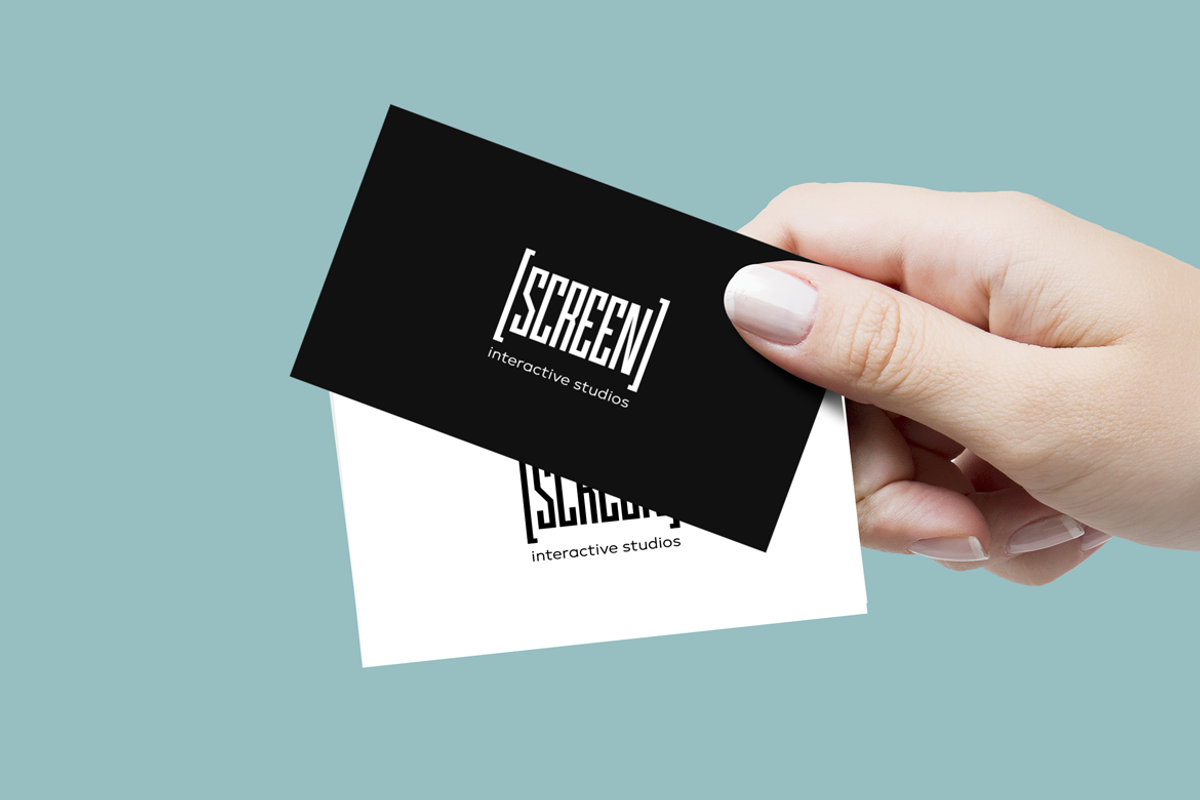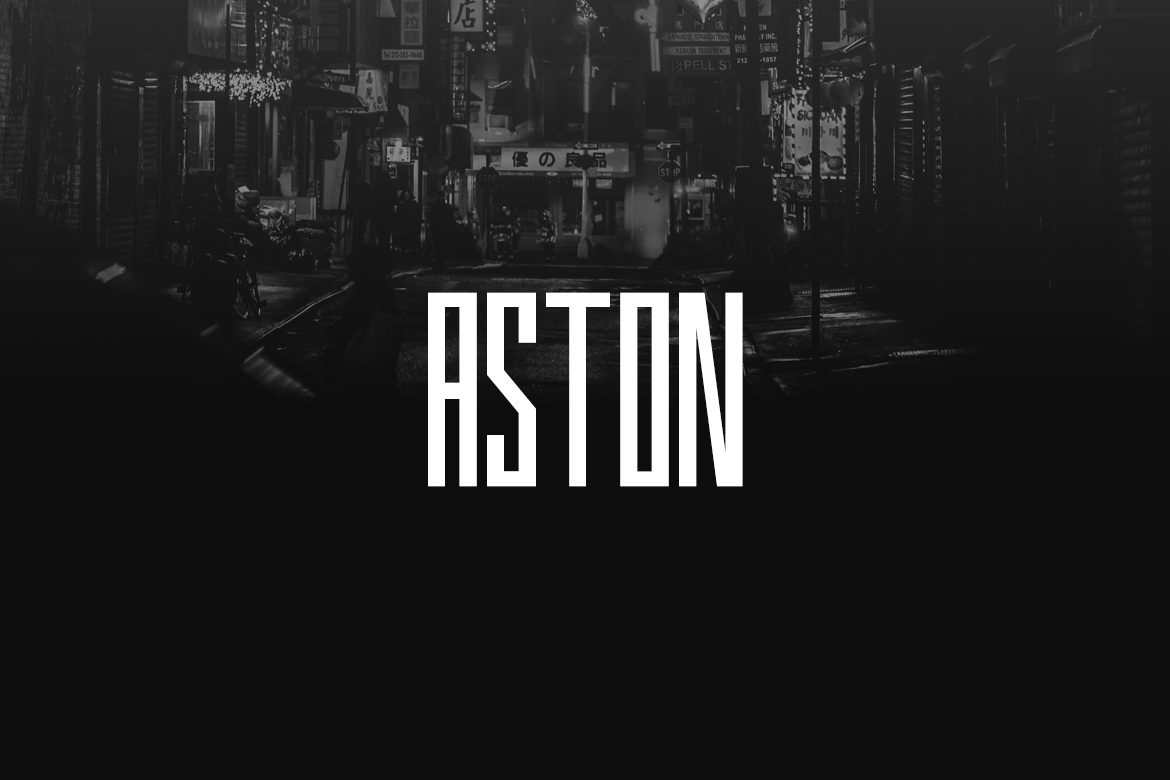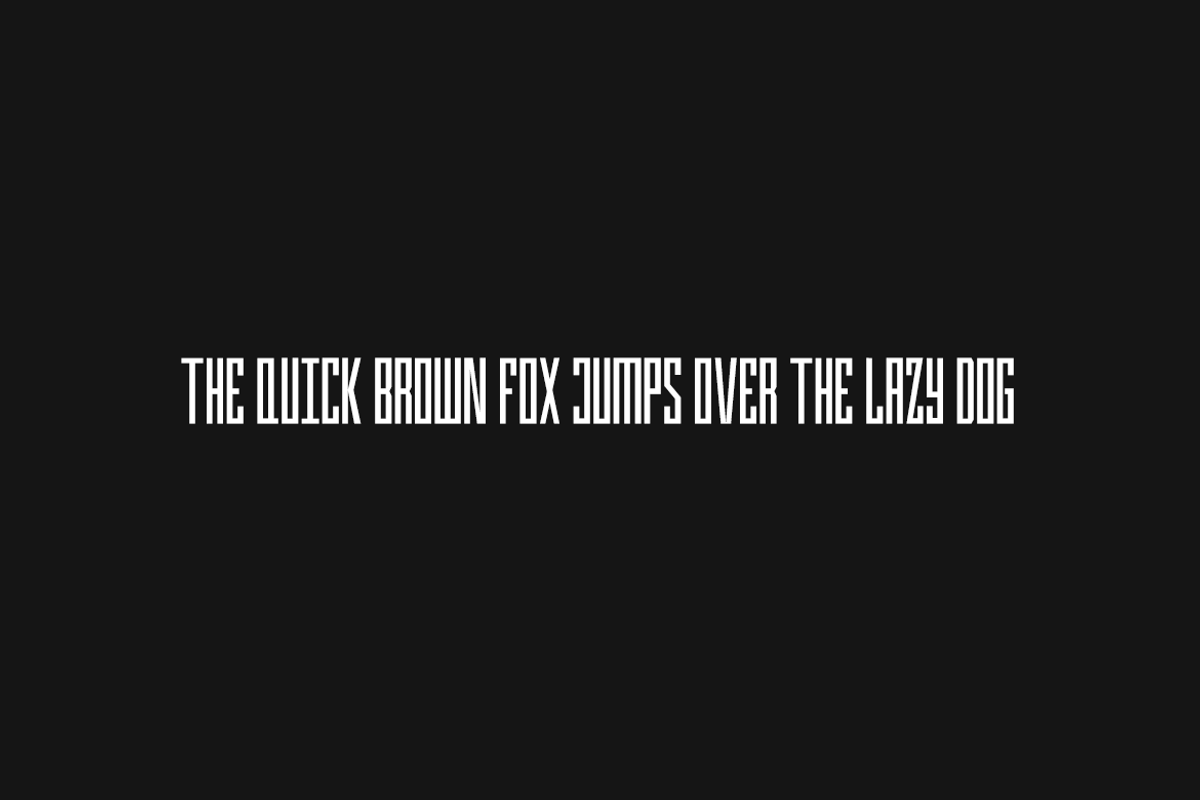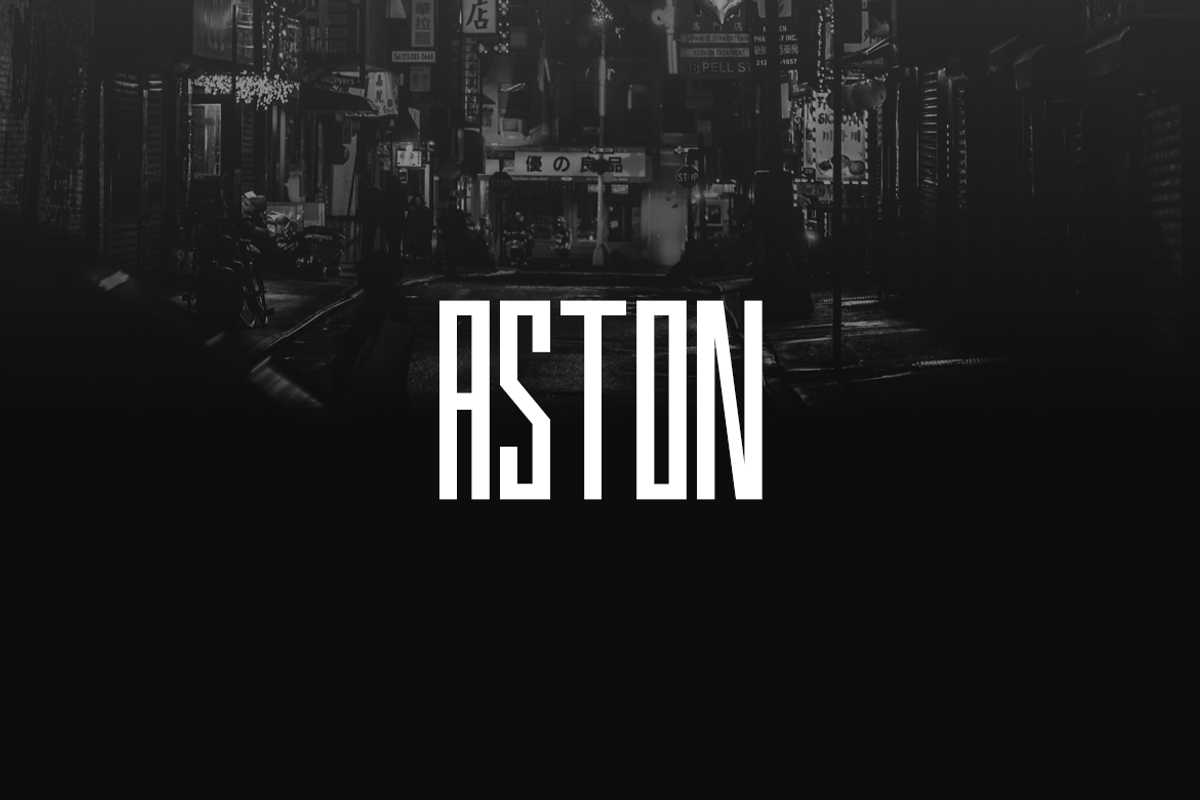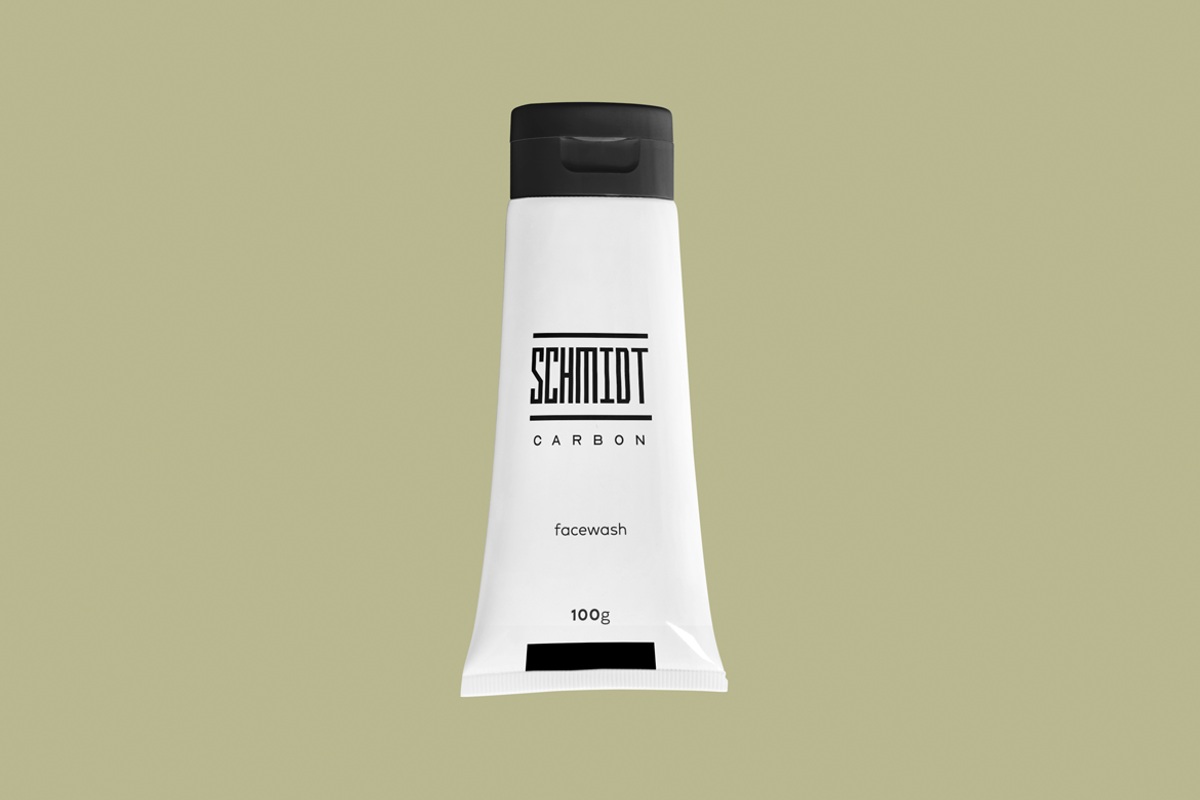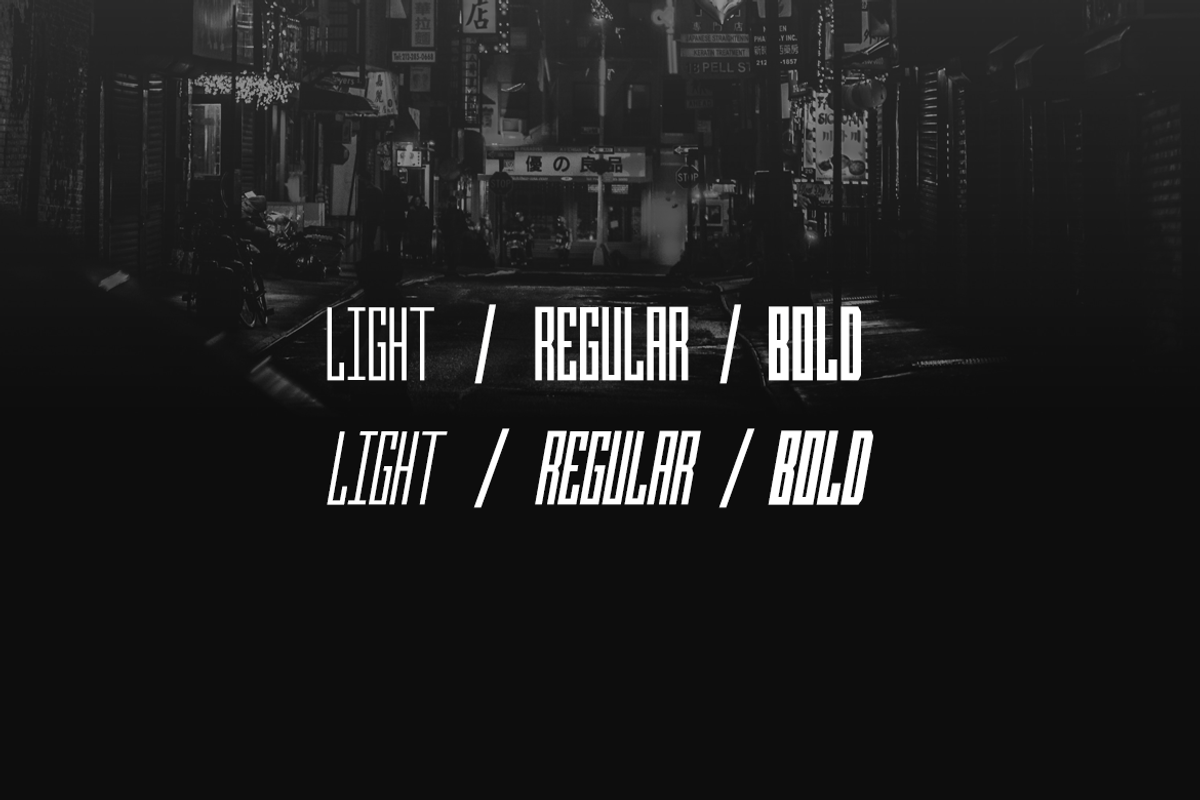
ASTON - Display / Logo Typeface
ASTON, an extremely unique all-caps display typeface inspired from ultra modern urban design trends. This typeface is perfect for headlines, big text, branding, logotypes & display usage. This font is also perfect for creating outstanding logos, promotional content and marketing graphics that can really grab attention from your visitors. Please see the examples shown above to get an idea about the capability of this typeface.
ASTON comes with three weights (Light, Regular & Bold) along with italic versions of all three weights. The pack contains Desktop Fonts (OTF, TTF) and Web Fonts (EOT, SVG, TTF, WOFF, WOFF2) as licensing options.